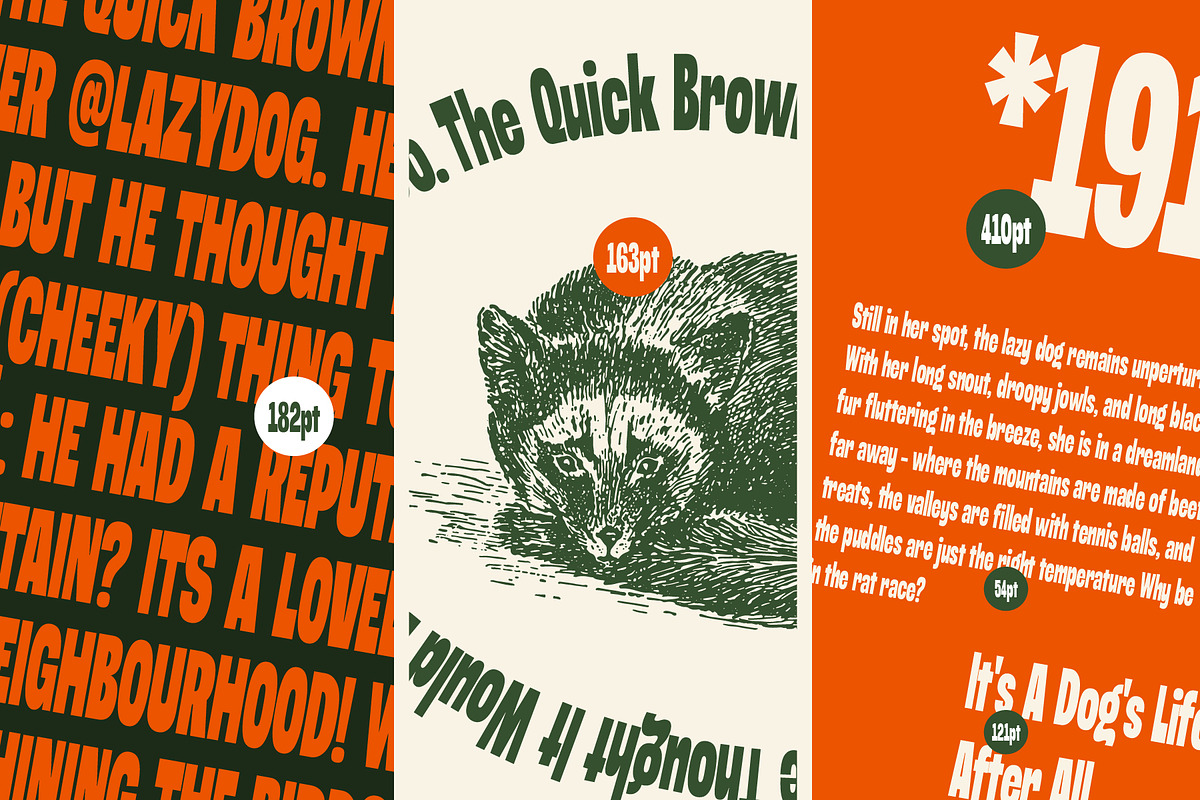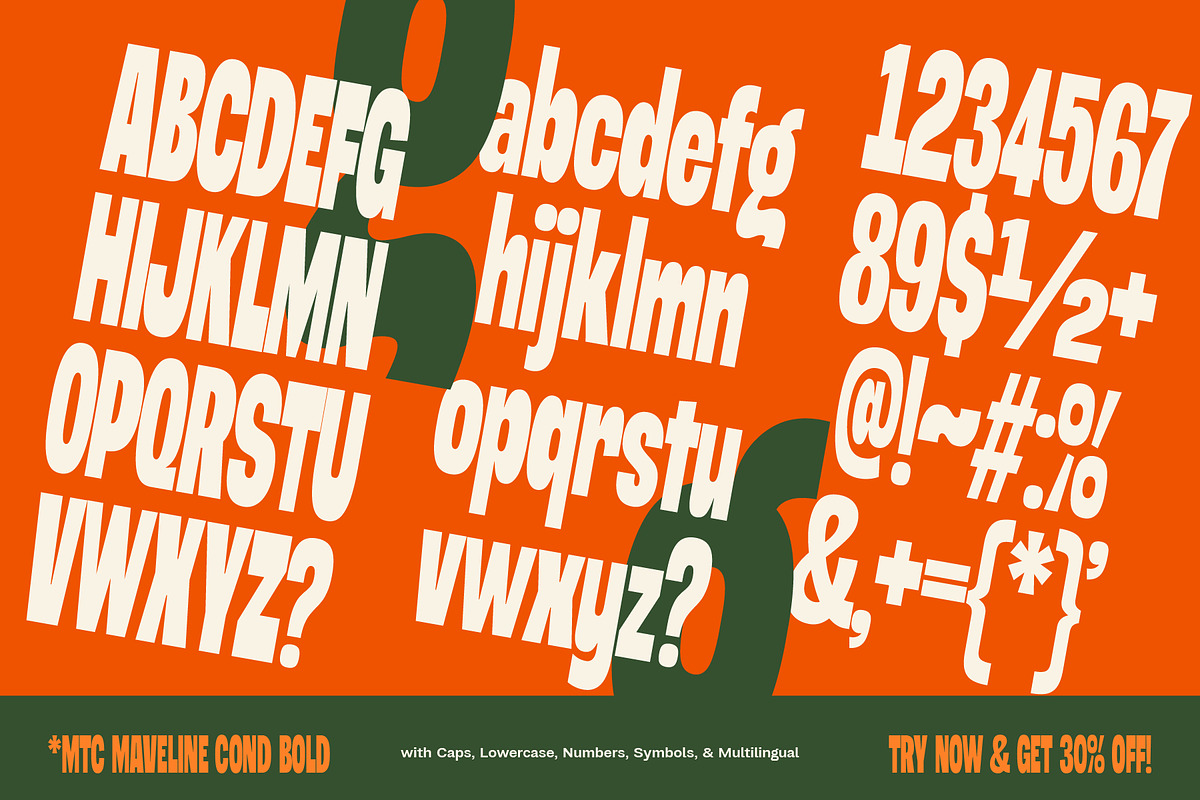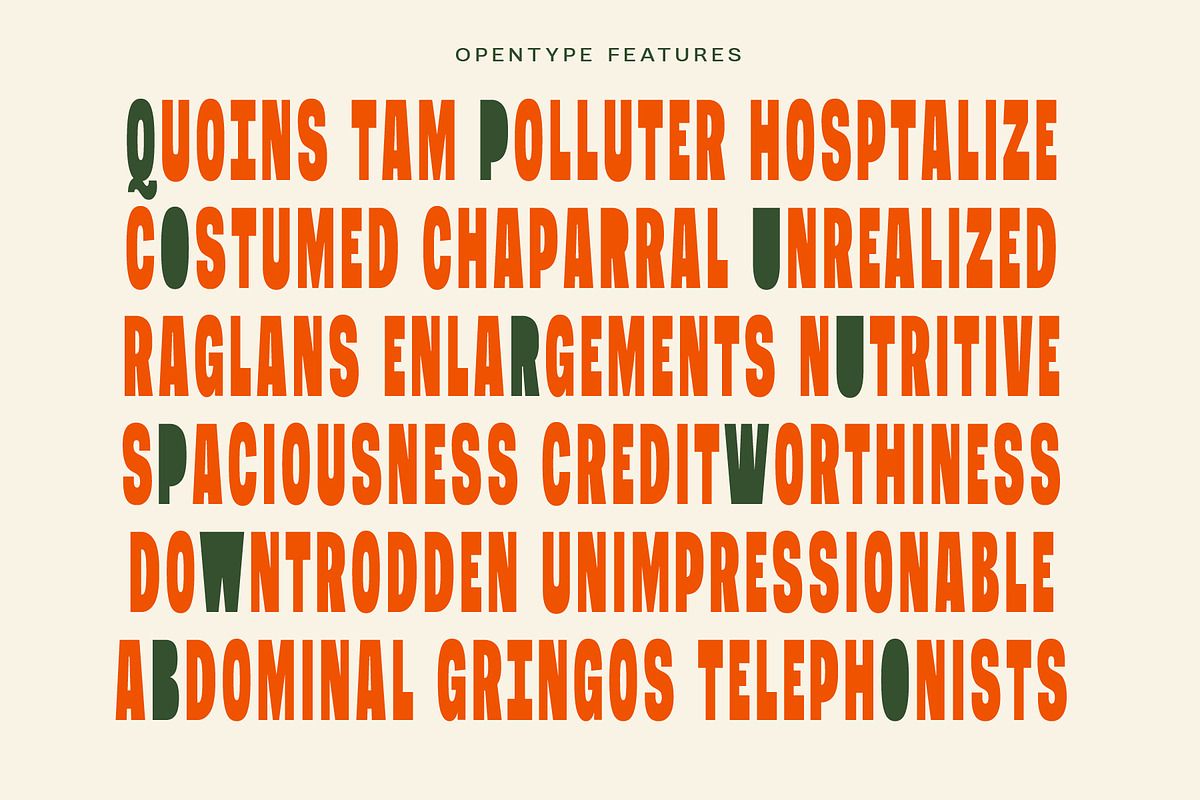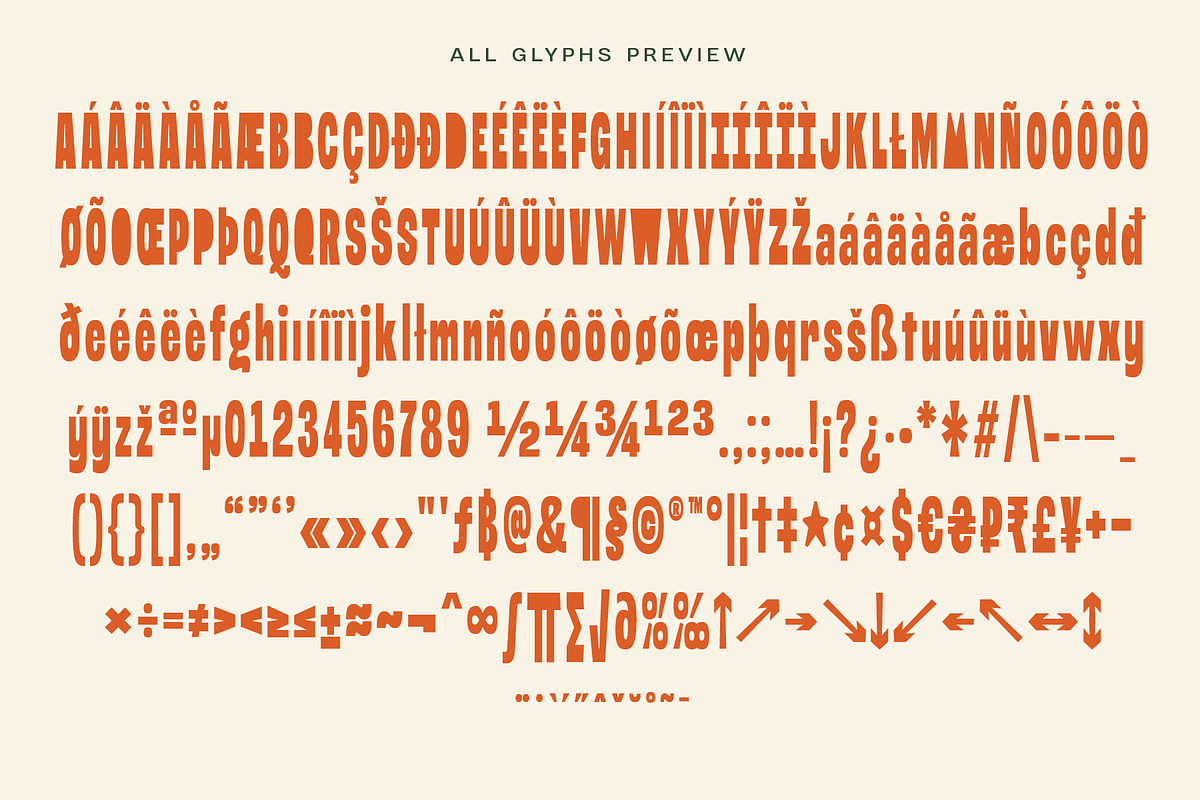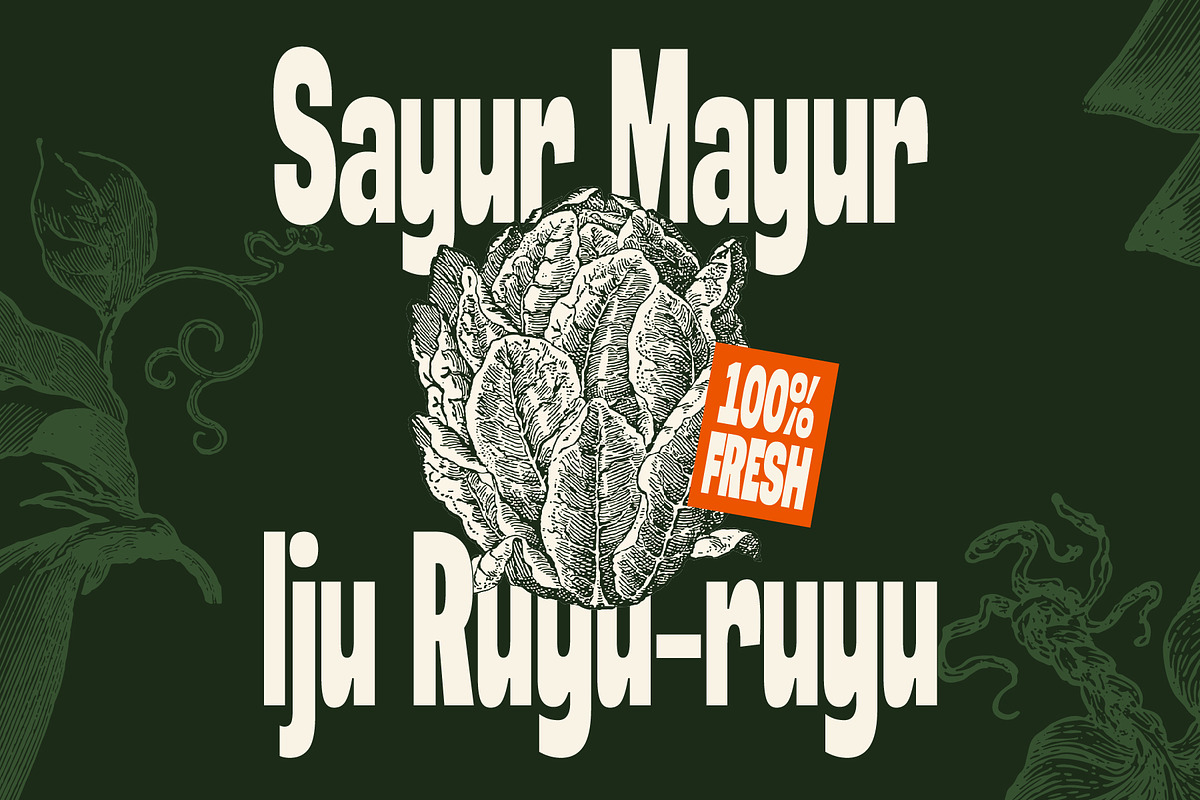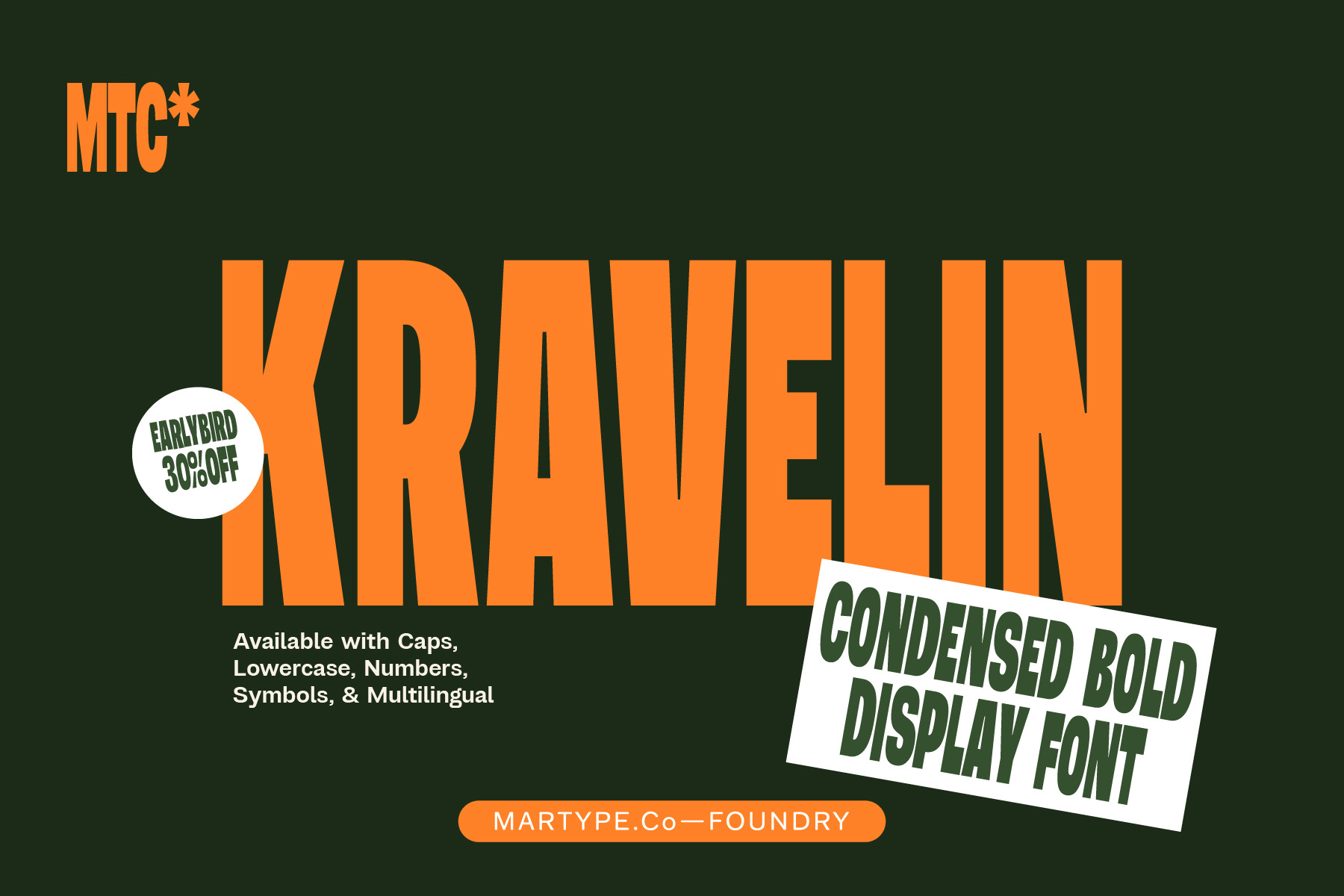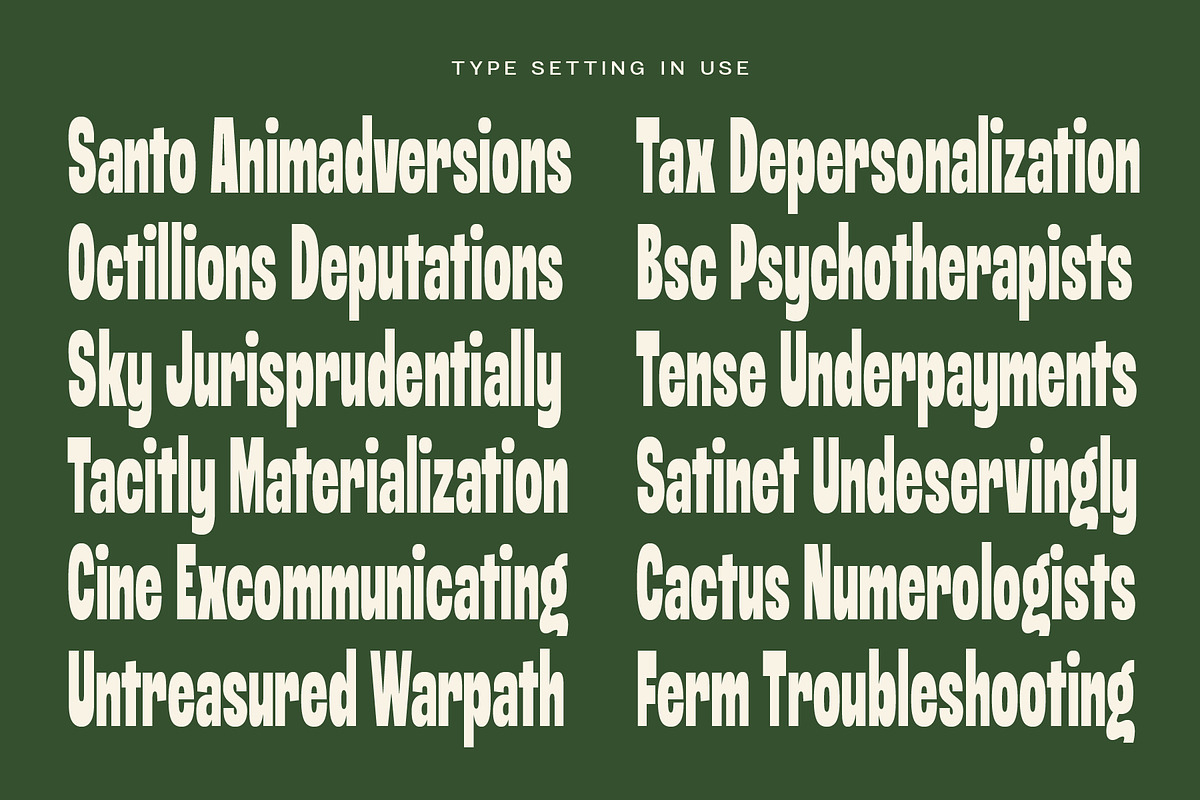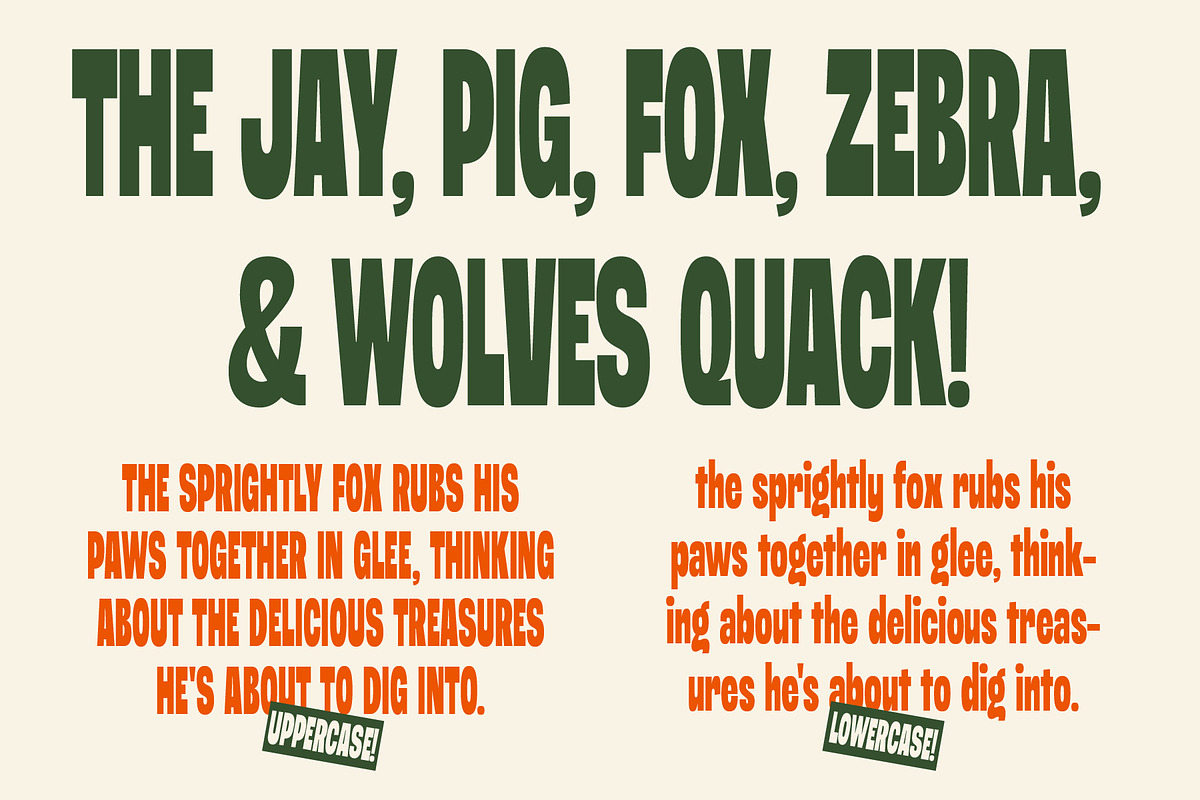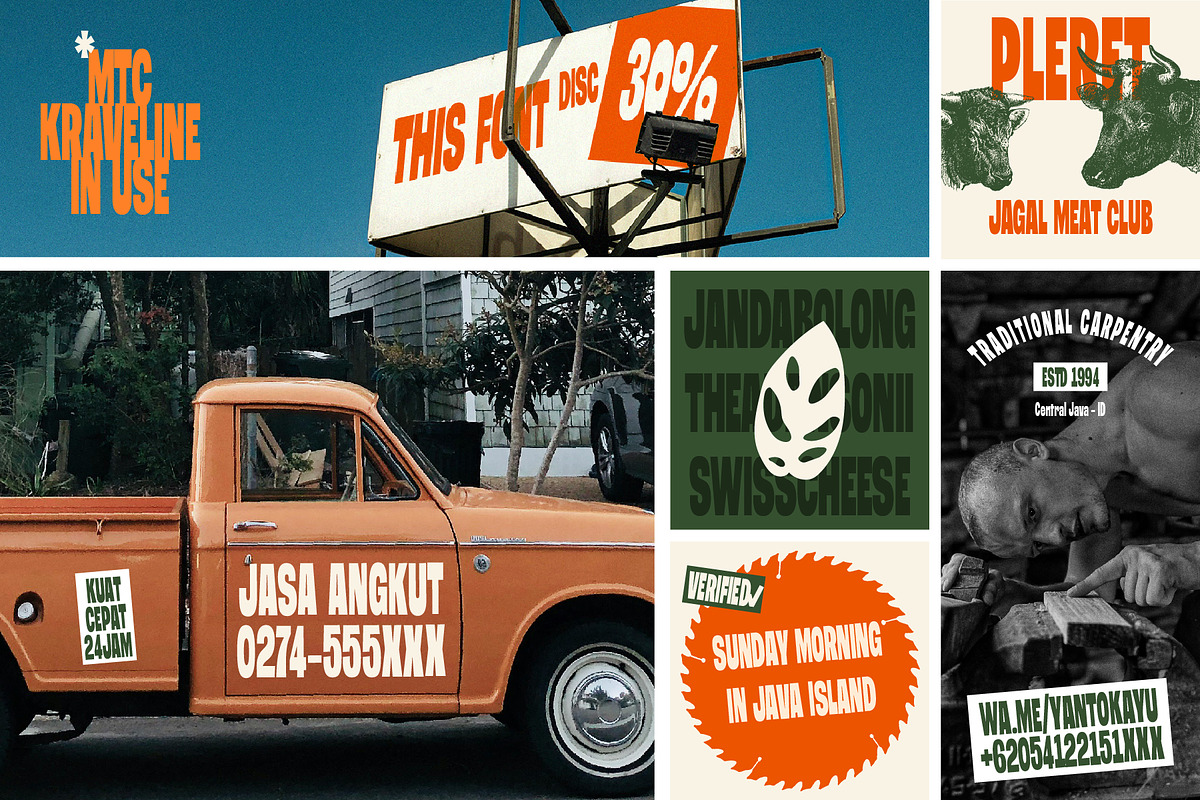
MTC Kraveline - Condensed Bold Font
MTC Kraveline - A Condensed Bold Display Typeface
MTC Kraveline, the perfect bold and narrow font for headlines and captivating displays. Ideal for designers seeking a modern and impactful look with retro and vintage vibes. Transform your projects with this black and tight, condensed typeface that demands attention.
Comes with up to 200+ Languages with latin plus glyph.